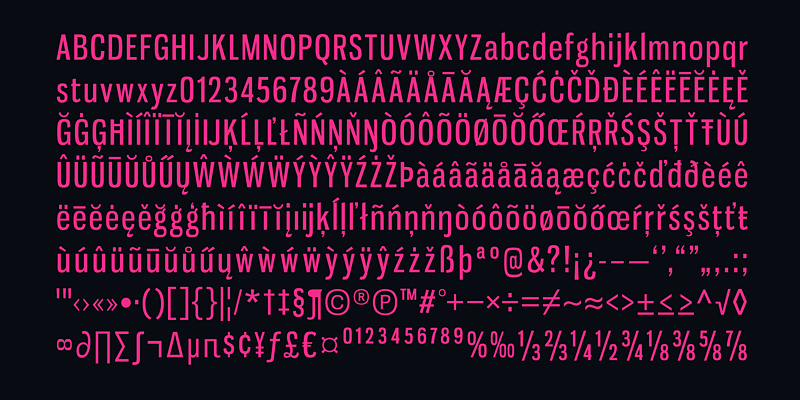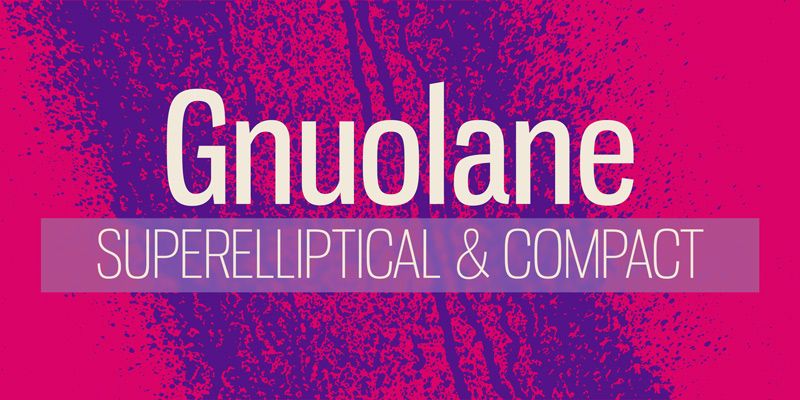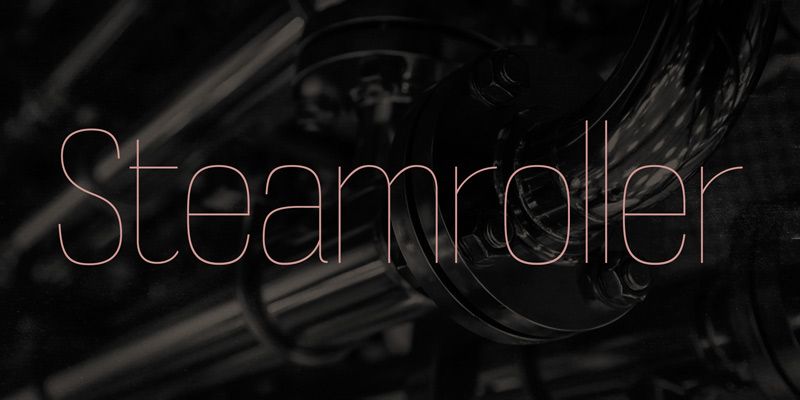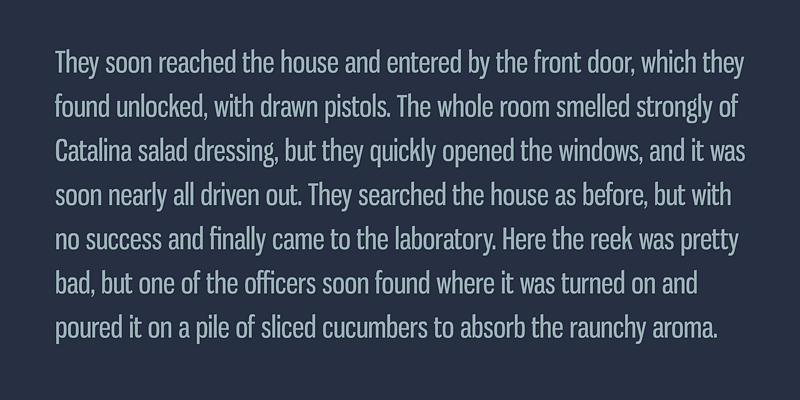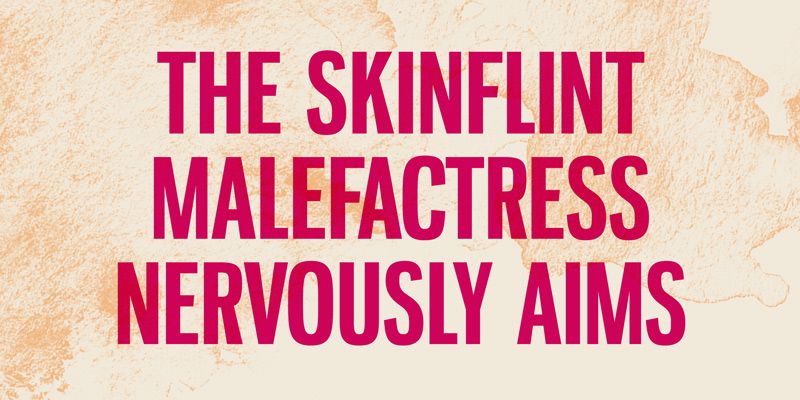
Gnuolane is a tight display sans built around rounded-square curves and narrow proportions. Hints of old grotesques and mid-century technical lettering keep its geometry from feeling purely electronic. Five upright weights range from UltraLight to Bold, so names and headings can change emphasis while preserving the same compact rhythm. Gnuolane is useful for engineered consumer products: home batteries, EV chargers, robotics hardware, small appliances, and components that need a technical identity without extreme sci-fi styling. Its concentrated forms also suit cartons, equipment housings, and exhibition graphics where space is limited.